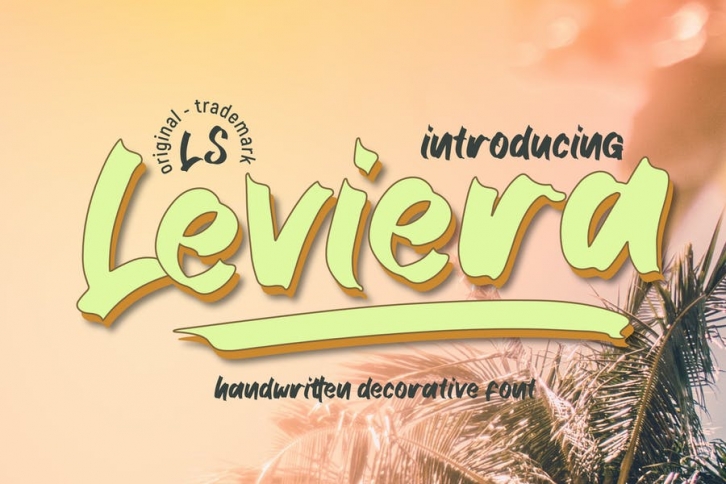
Leviera Font
This pair was inspired by the summer poster design that i saw on some coffee shop, It was crafted by hand specially to add natural handmade feeling in its brand identity than i make it clean with pentool.
Opentype features Leviera font has 184 character set included Leviera Font is very good looking in logo, labels, t-shirt prints, product packaging, invitations, advertising and others.